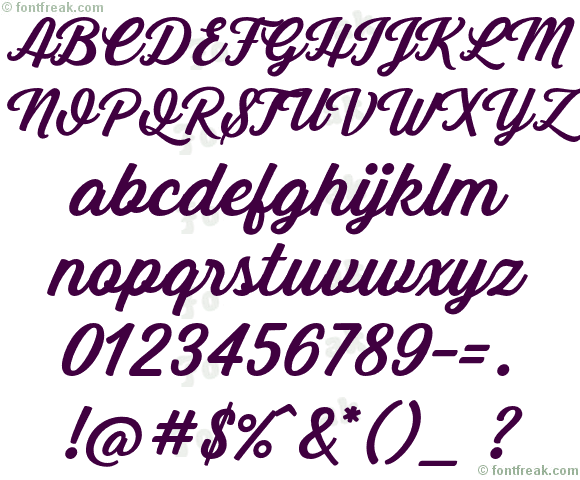
GrandAventure
About GrandAventure
GrandAventure, designed by Clement Nicolle, is a captivating script font that embodies elegance and playful charm. This typeface features a fluid cursive style characterized by its dynamic strokes and graceful curves. The stroke weight varies, giving it a lively contrast that captures attention while ensuring readability. With its generous spacing, GrandAventure maintains clarity, making it suitable for a variety of design applications.
Best suited for creative projects, GrandAventure shines in wedding invitations, where its romantic flair can enhance the overall aesthetic. It also works beautifully on restaurant menus, adding an inviting touch that can entice diners. Graphic designers often find it ideal for branding elements, as it conveys personality and warmth, perfect for small businesses looking to stand out. Additionally, this font can elevate social media graphics and posters, providing a unique visual identity that draws viewers in.
The target audience for GrandAventure includes graphic designers, small business owners, and content creators who seek a distinctive typeface to express their brand's personality. Its versatility allows it to adapt to various themes, from rustic to modern, making it a valuable addition to any designer's toolkit.
What truly sets GrandAventure apart is its ability to blend elegance with approachability. The whimsical nature of this font, combined with its sophisticated design, allows it to stand out in a crowded market. For anyone looking to add a touch of flair to their projects, the GrandAventure font free download offers an excellent opportunity to elevate visual communication. Embrace the charm and creativity that GrandAventure brings to your designs, and let it inspire your next project.